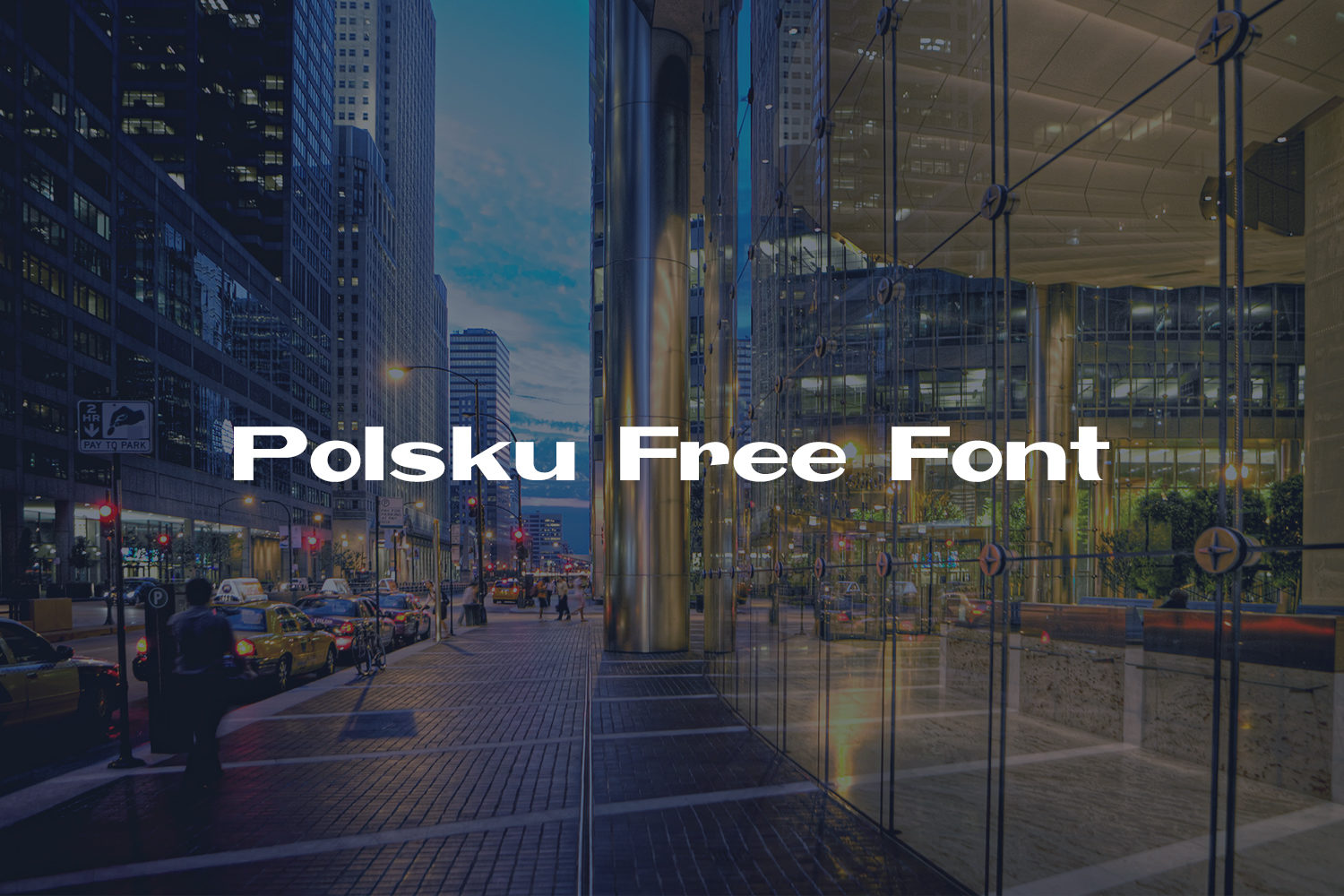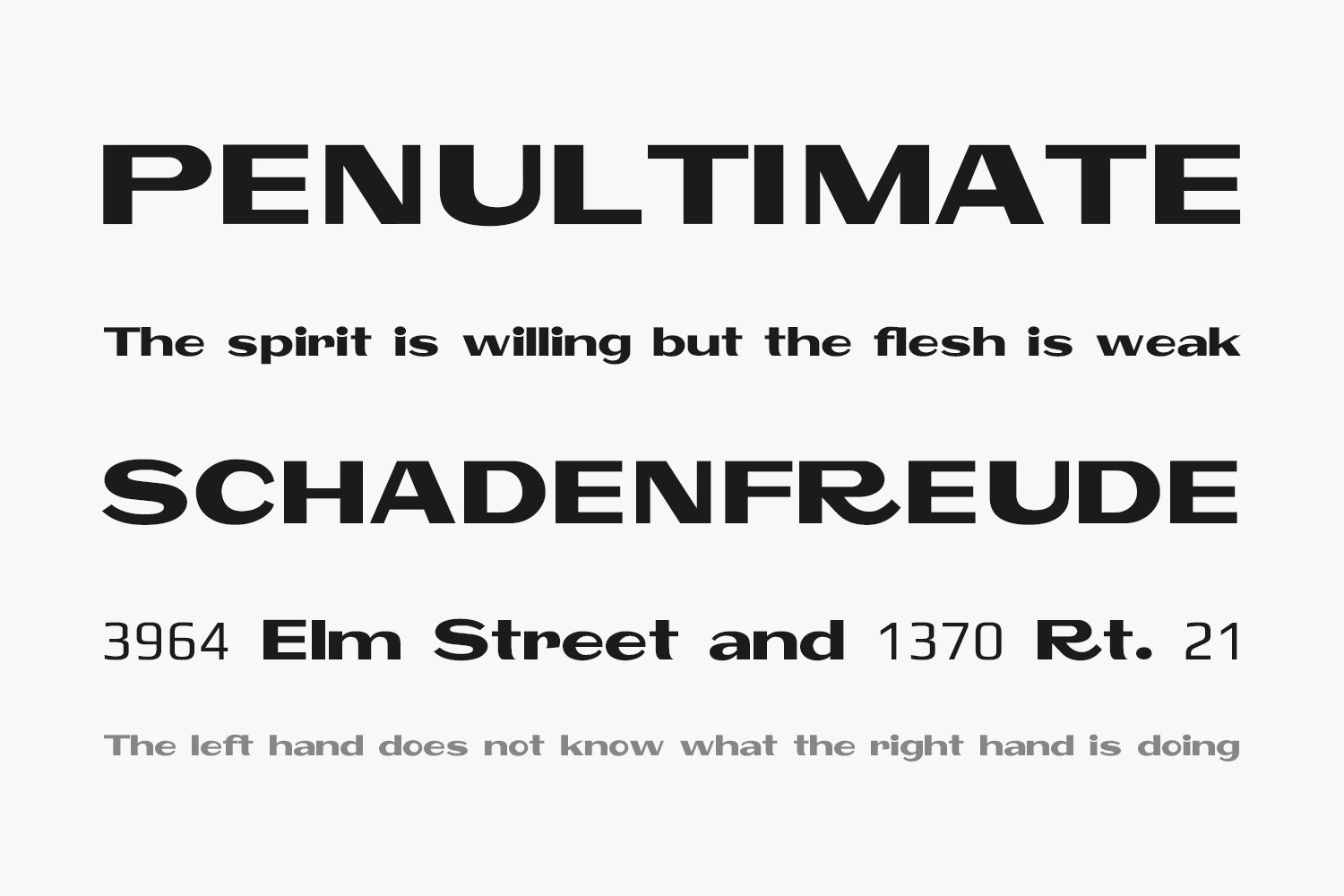
Polsku Free Font is inspired by shop windows lettering and includes only the capitals the lower cases and a very basic set of punctuation marks.
Designed by OSP-foundry